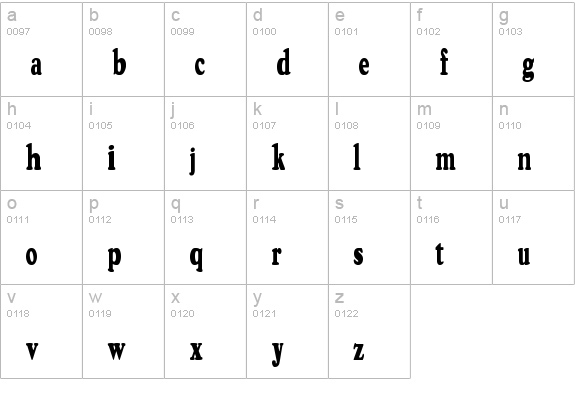
RSOswaldGrey Cn is a modern and stylish font that exudes sophistication and elegance. Its sleek, clean lines make it perfect for a wide range of design projects, from branding to editorial design. The condensed style of the font adds a touch of sleekness and professionalism to any layout. What makes RSOswaldGrey Cn even more appealing is that it is available for free download at FontsMarket.com. This means that you can easily access this high-quality font for your projects without having to worry about any costs. Whether you are a designer looking to elevate your work or a business owner seeking a polished look for your branding materials, RSOswaldGrey Cn is a fantastic choice that won't break the bank. Download it today and add a touch of sophistication to your designs.